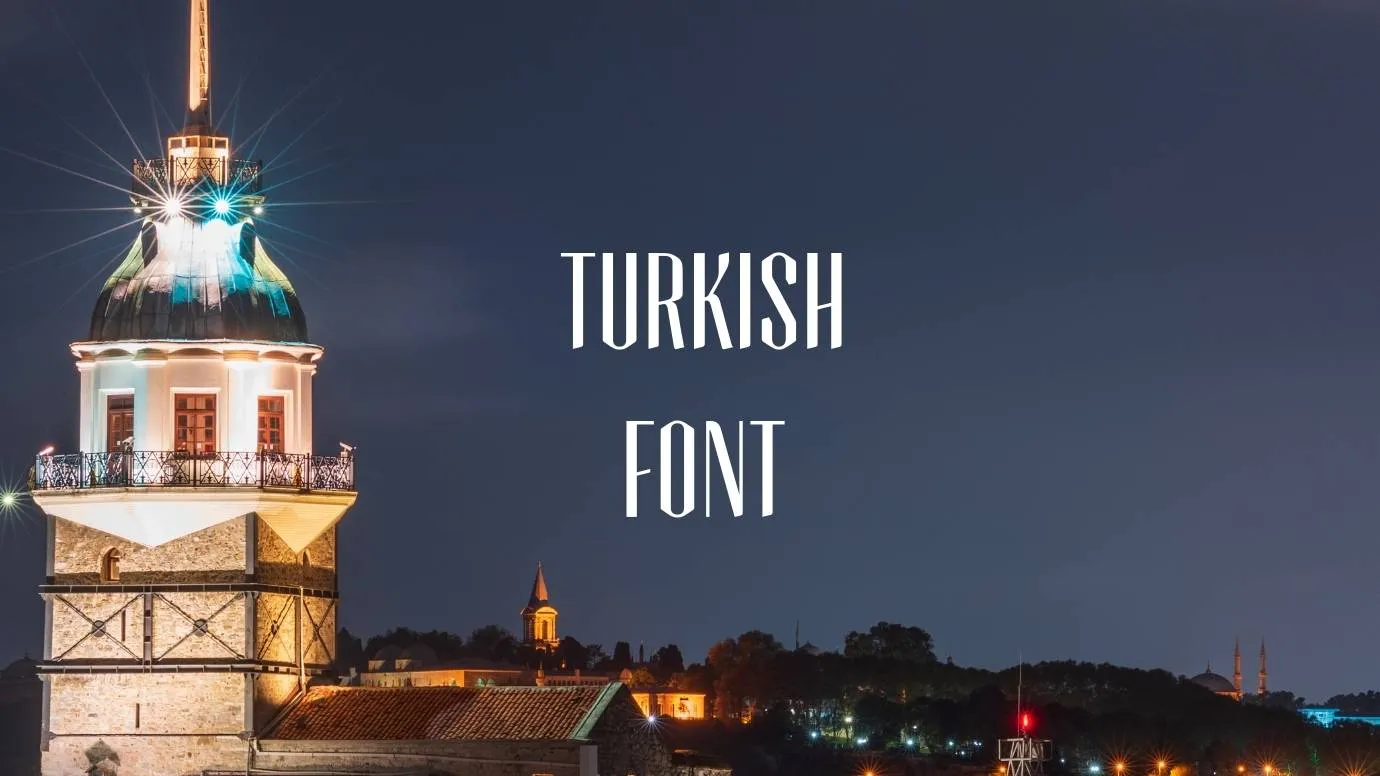
Turkish Font Family is a retro typeface family that is going to be used for huge creative designs. It was designed by a 3D artist Vladimir Nikolic. He created this typeface with 4 weights including Regular, 3D Inverted Regular, Hollow Regular.
| Name | Turkish Font |
| Designer | Vladimir Nikolic |
| Style | Retro |